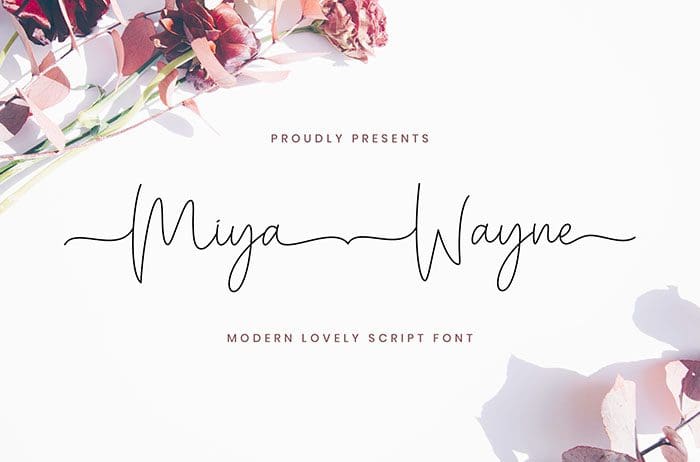
Miya Wayne Script Font with Handwritten Signature Style. The Miya Wayne font was created with original handwritting pen. This font is perfect for fashion brand, wedding invitation, business card, logo brand, signature, and then calligraphy. This font is available only for personal use. Created this font by StringLabs. You can also search more free Script Fonts. Thanks.
Designed By : StringLabs